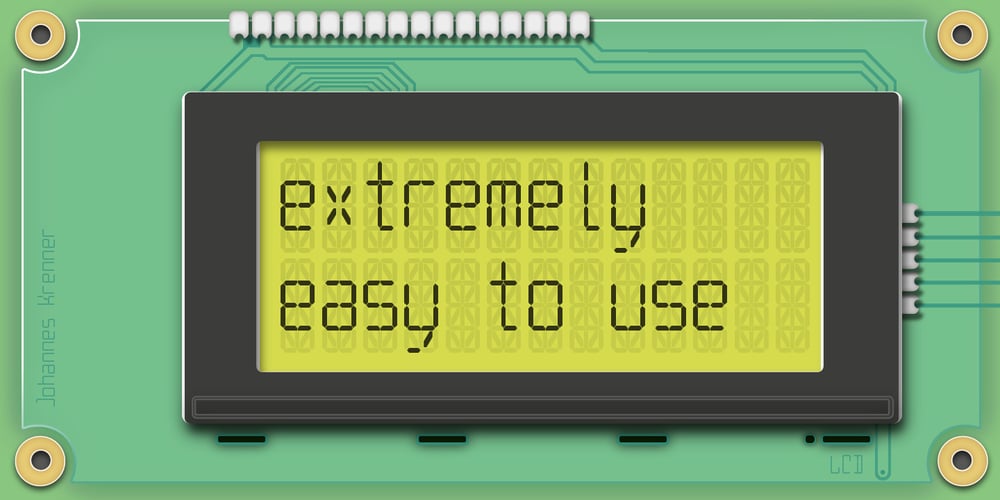
Cristal True
Cristal True font
Cristal True Font Family was designed by Johannes Krenner and published by Johannes Krenner. Cristal True contains 12 styles and family package options. »Cristal True« is an elaborate matrix display font. It contains 645 letters per font style and some Open Type features: Different stylistic alternates, small caps, various font styles and different sets of numerals. It is monospaced and therefor easy to handle, if you want to simulate the look and feel of a LCD display. The basis of this font is a Union-Jack or sixteen-segment display (SISD). It is expanded by another 10 segments for a wider range of languages supported (this should cover all European regions). »Crystal True« is perfected for the quick, easy and precise use in modern graphic design applications. Try »Cristal Text« for more text-heavier usages.